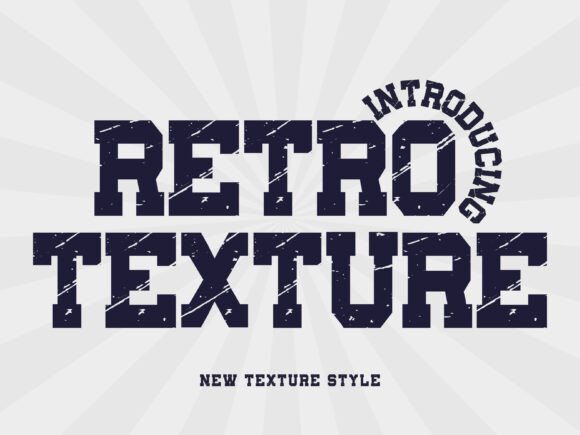
Retro Texture Font: Add a Touch of Classic Varsity Style to Your Designs
Are you looking for a font that can add a touch of classic varsity style to your design projects? Look no further than the Retro Texture Font. This font is perfect for sports-themed designs, and is sure to make your jerseys, party invitations, home decor items, and more stand out.
What is Retro Texture Font?
The Retro Texture Font is a unique and stylish font that is inspired by the classic varsity fonts of the past. It features a distressed texture that gives it a worn, vintage look, and is perfect for adding a touch of nostalgia to your designs.
Features of Retro Texture Font
The Retro Texture Font has a number of features that make it perfect for sports-themed designs. Some of its key features include:
- Distressed Texture: The font features a distressed texture that gives it a worn, vintage look.
- Classic Varsity Style: The font is inspired by the classic varsity fonts of the past, and features a bold, athletic look.
- High-Quality Design: The font is designed to be high-quality and easy to read, making it perfect for use in a variety of design projects.
Uses for Retro Texture Font
The Retro Texture Font is perfect for a variety of design projects, including:
- Jerseys: The font is perfect for creating custom jerseys for sports teams, clubs, and organizations.
- Party Invitations: The font can be used to create custom party invitations for sports-themed parties and events.
- Home Decor Items: The font can be used to create custom home decor items, such as signs, banners, and posters.
- Social Media Graphics: The font can be used to create custom social media graphics, such as Facebook posts and Twitter headers.
Benefits of Using Retro Texture Font
There are a number of benefits to using the Retro Texture Font in your design projects. Some of the key benefits include:
- Unique Look: The font features a unique and stylish look that is sure to make your designs stand out.
- Increased Visibility: The font is easy to read and can help increase visibility for your designs.
- Professional Look: The font has a professional look that is perfect for use in a variety of design projects.
Tips for Using Retro Texture Font
Here are a few tips for using the Retro Texture Font:
- Use it for Sports-Themed Designs: The font is perfect for sports-themed designs, so be sure to use it for projects like jerseys, party invitations, and home decor items.
- Experiment with Different Colors: The font looks great in a variety of colors, so be sure to experiment with different colors to find the one that works best for your design.
- Combine it with Other Fonts: The font can be combined with other fonts to create a unique and stylish look.
The Retro Texture Font is a unique and stylish font that is perfect for sports-themed designs. With its distressed texture and classic varsity style, it’s sure to make your jerseys, party invitations, home decor items, and more stand out. So why wait? Download the Retro Texture Font today and start creating your own custom designs.